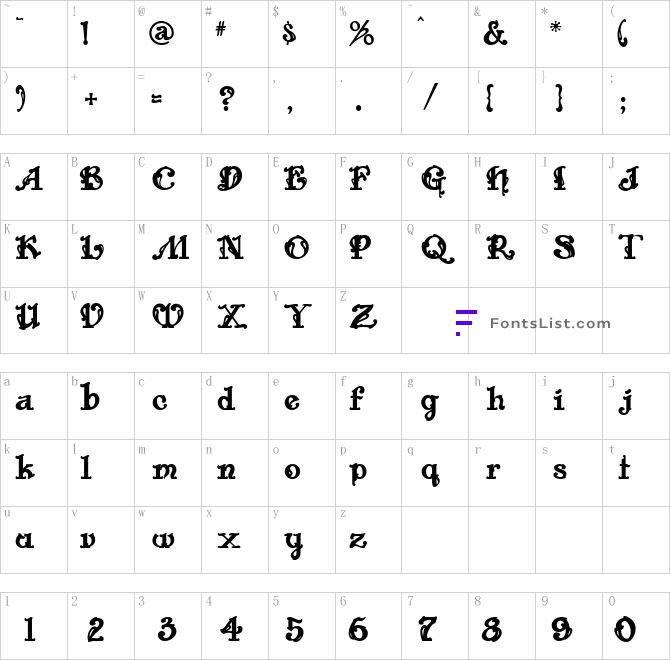
- Font Name:Cajalco
Cajalco.ttf is a very beautiful artistic font, Cajalco.ttf is widely used in the design and printing of various books and pictures,Cajalco.ttf has a strong visual impact,Cajalco.ttf is a commonly used font in newspapers, magazines and books, and is used in posters, e-commerce Poster design, store design, logo design, font design and other fields.Cajalco.